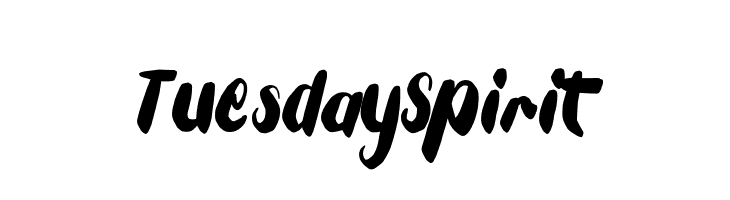
A playful, handwritten font with smooth, rounded edges and a casual style.
A playful, handwritten script font with a casual and fluid style.
A playful, hand-drawn font with a casual and friendly style.
A bold, brush-style font with dynamic, slanted characters.
A playful, dynamic font blending script and sans-serif styles with a handwritten feel.